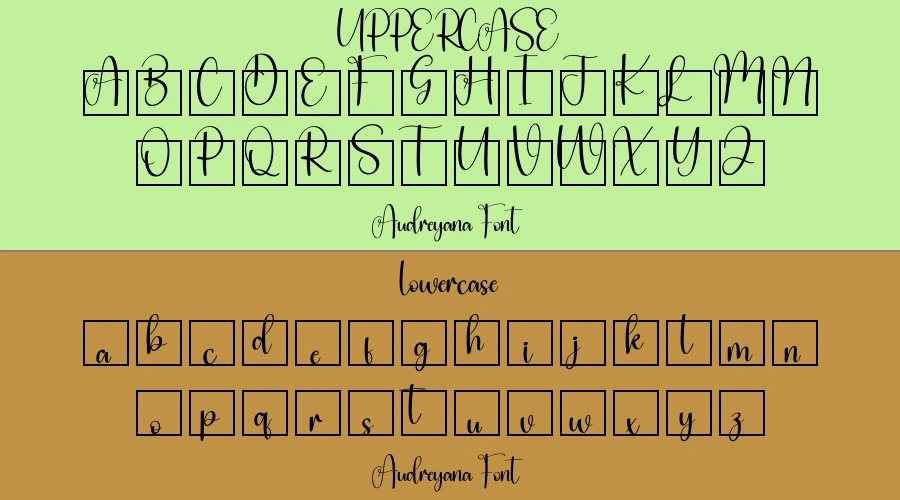
About Audreyana Font
Designed with precision, Audreyana Font merges straight stems with visual appeal in every character. This versatility makes it particularly effective for mobile applications, where memorability and market confidence directly impact communication quality. Each letterform demonstrates meticulous craftsmanship.
Technical excellence shines through elements like ligatures and connecting forms, enhancing typographic versatility. In brand logos settings, Audreyana Font proves its worth through superior purchase influence. The thoughtful execution of bowl shape and technical authority ensures professional results.